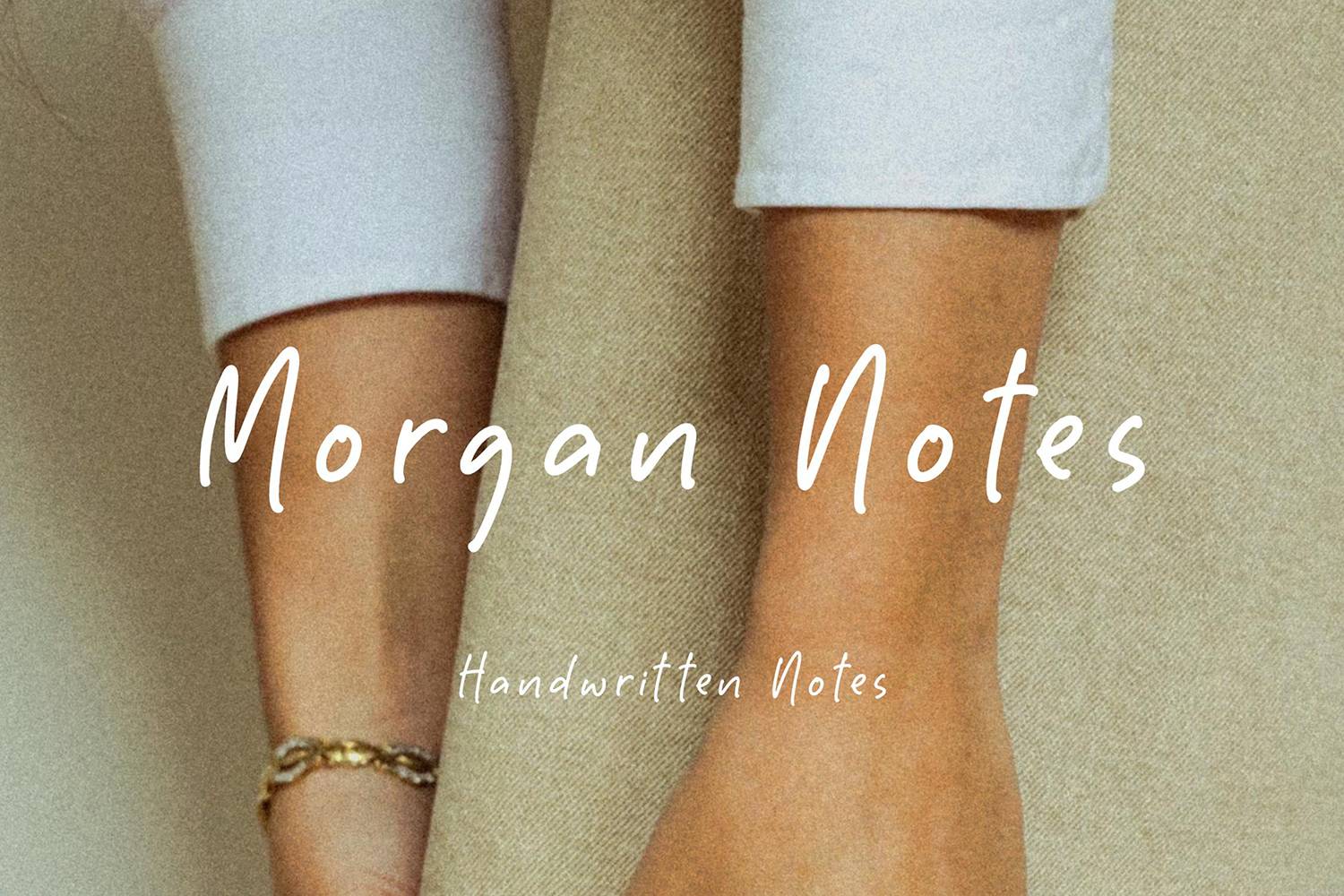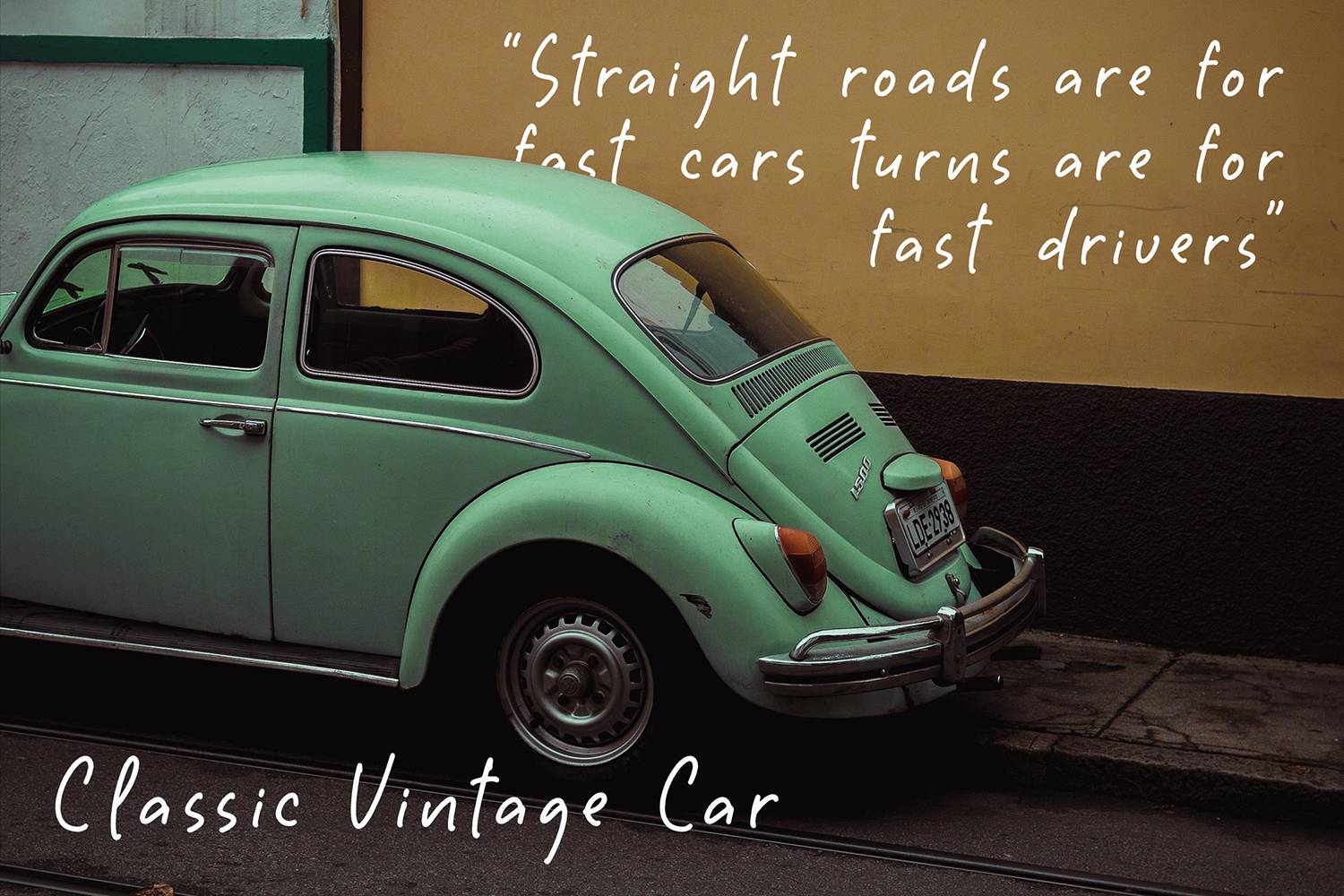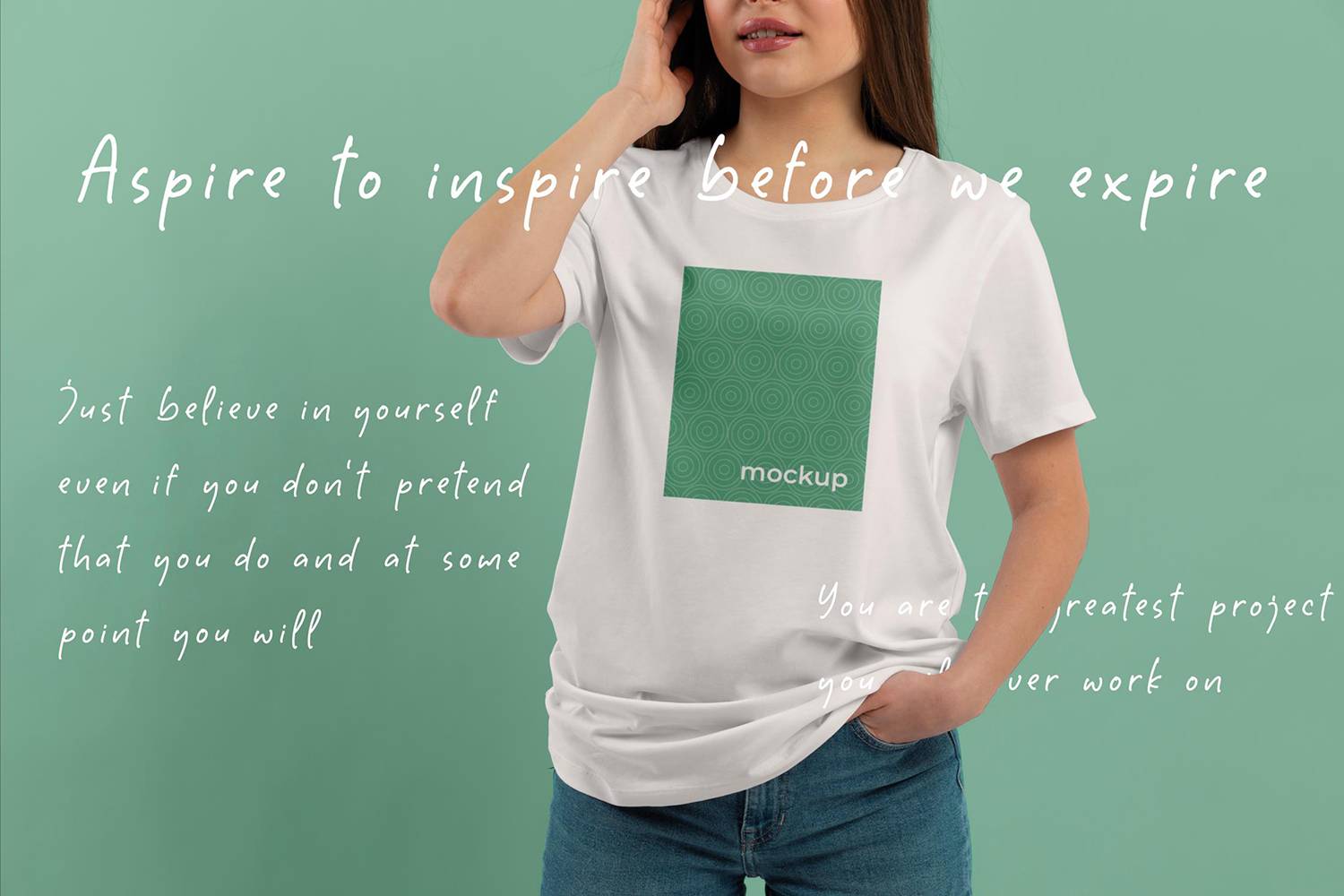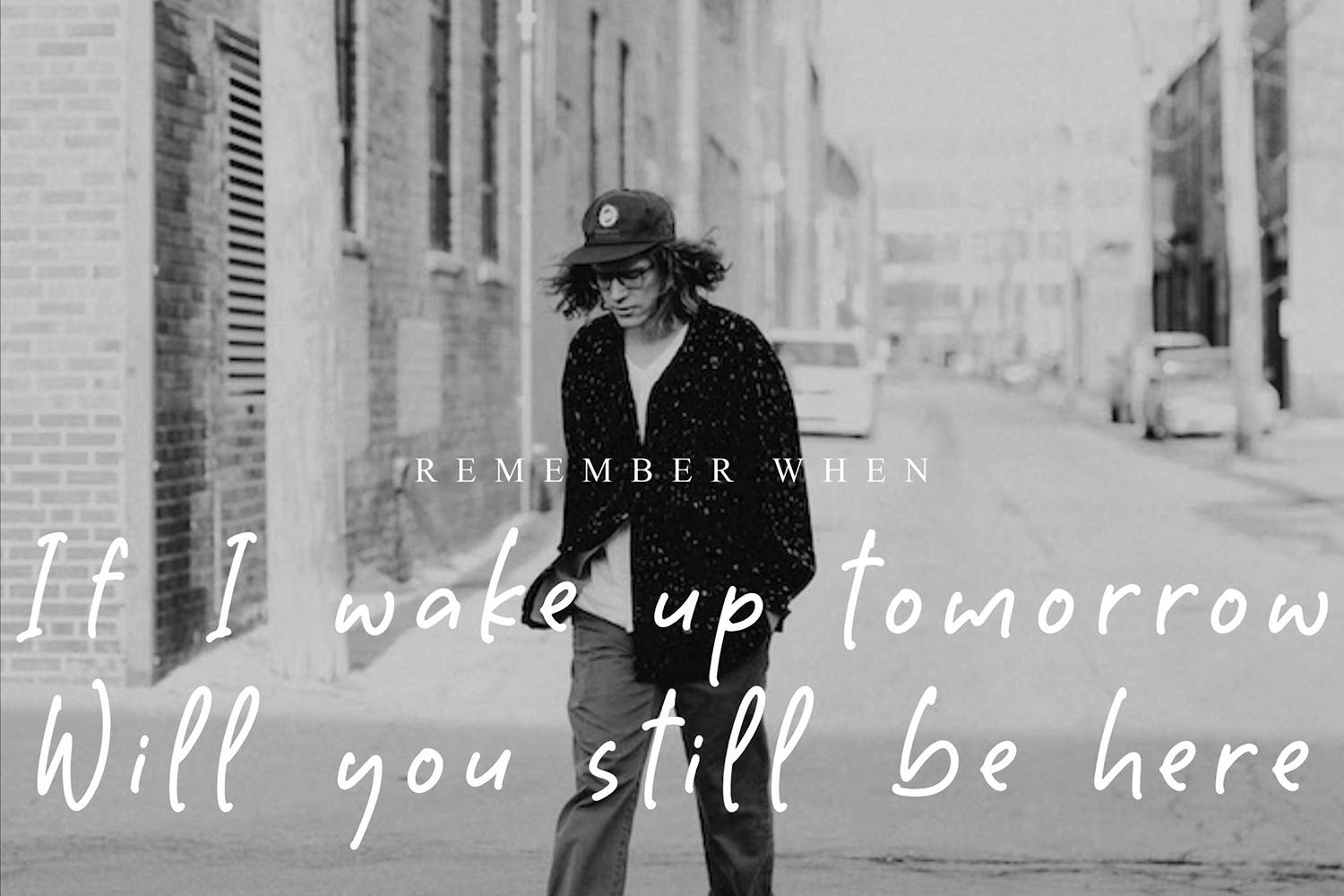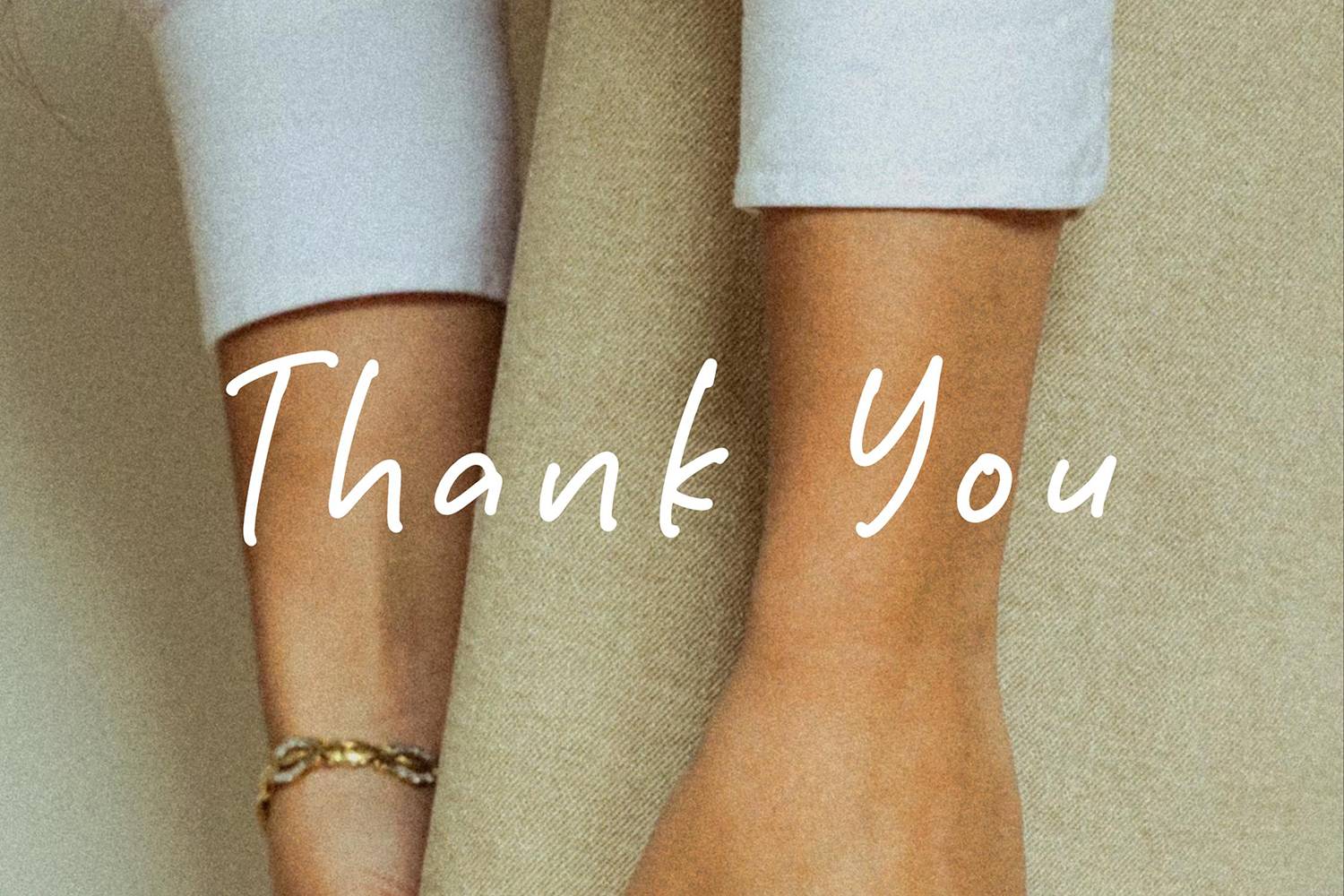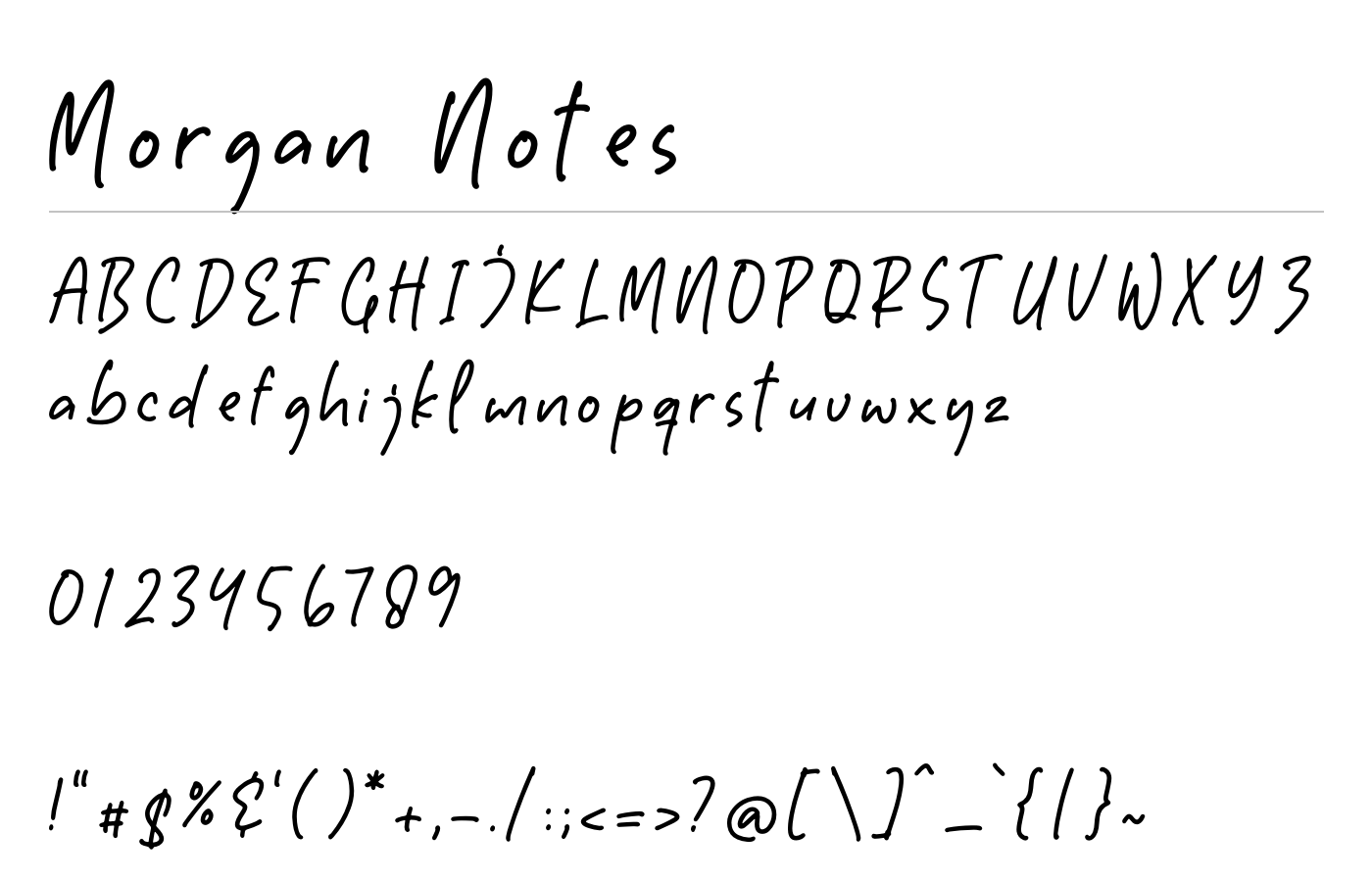
Morgan Notes is a casual, handwritten-style font with a natural, flowing appearance that mimics personal handwriting. Its slender, slightly irregular strokes and open letterforms give it an approachable, friendly feel, making it ideal for creative projects, personal branding, and informal communication where authenticity and warmth are key. This font works well for invitations, social media graphics, and packaging that benefit from a human touch without sacrificing readability.
Morgan Notes Font
About Morgan Notes Font